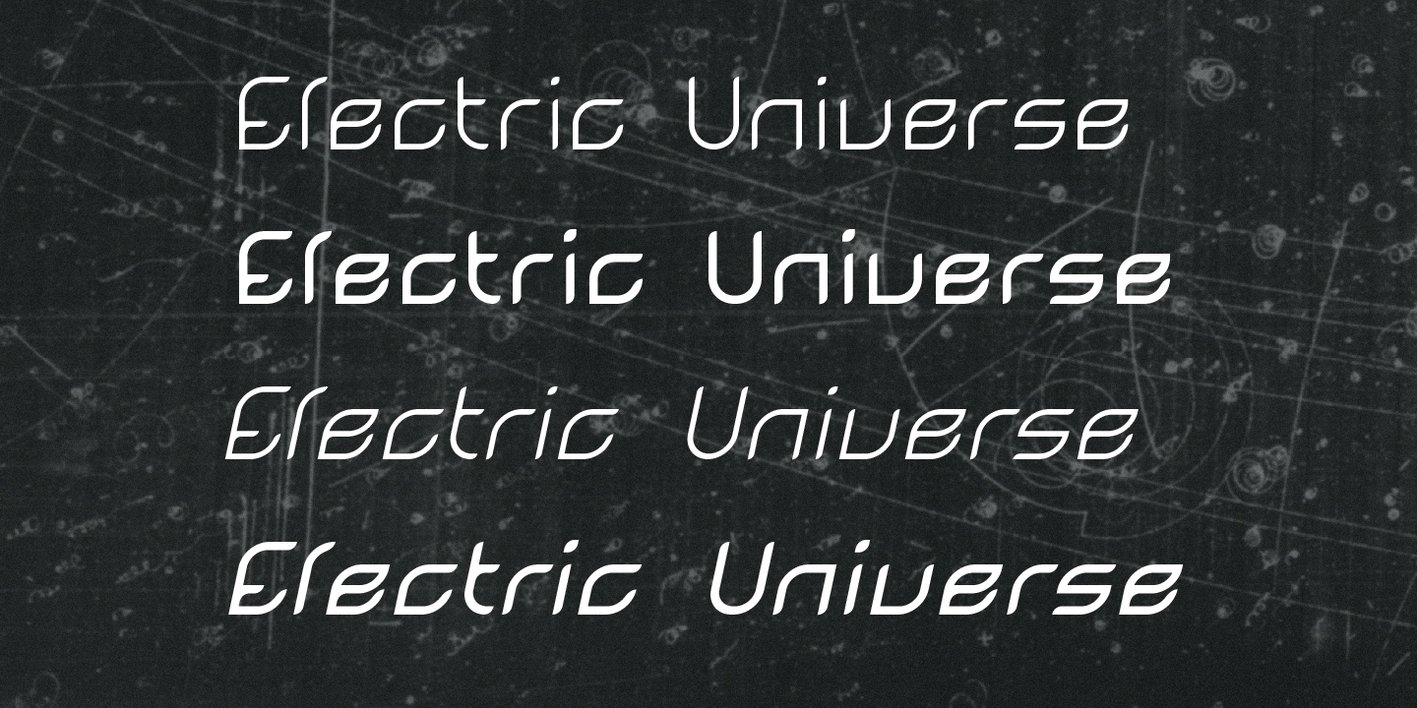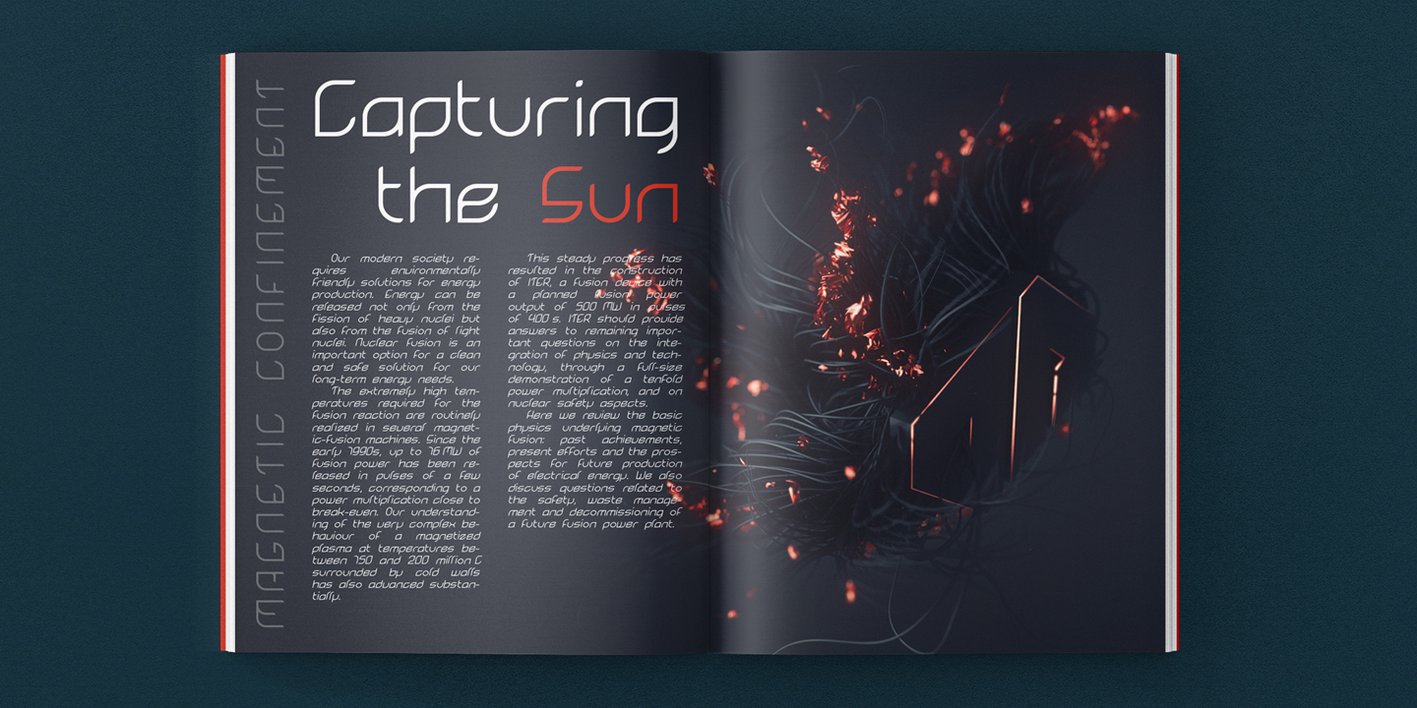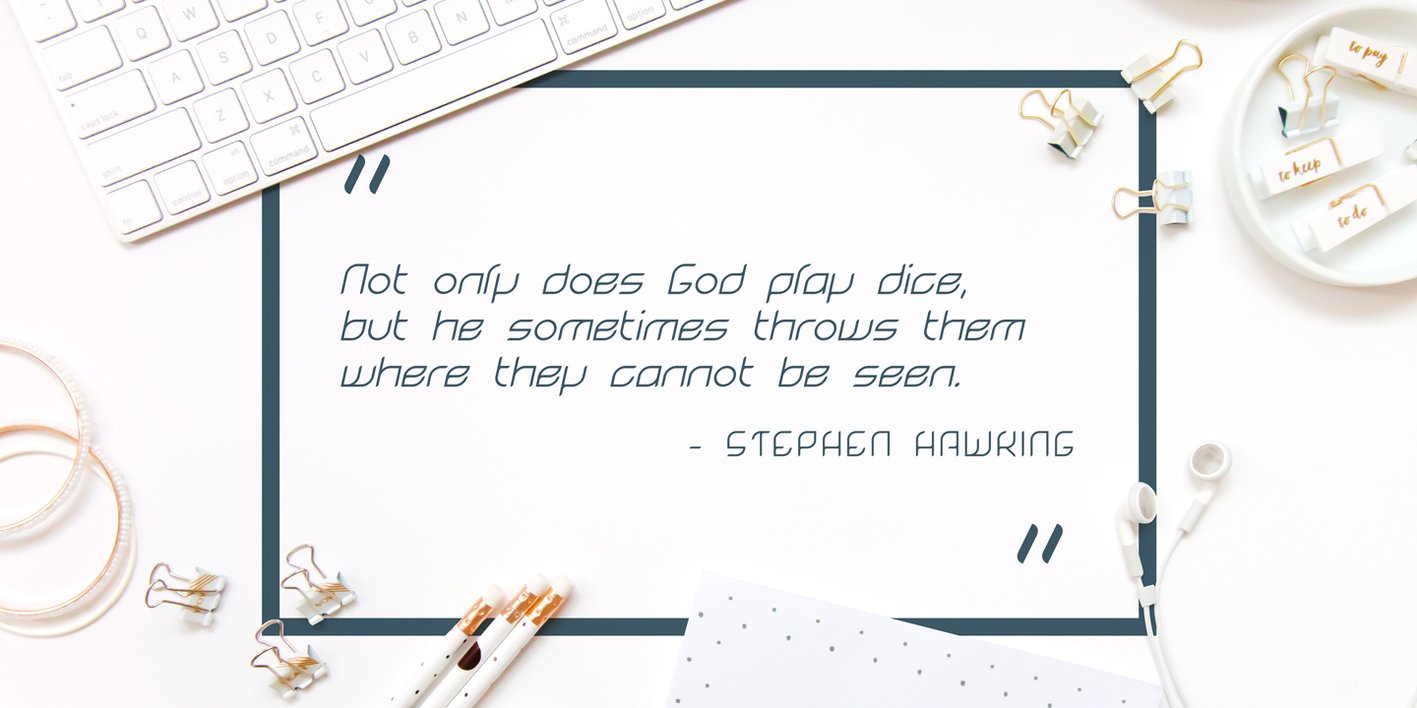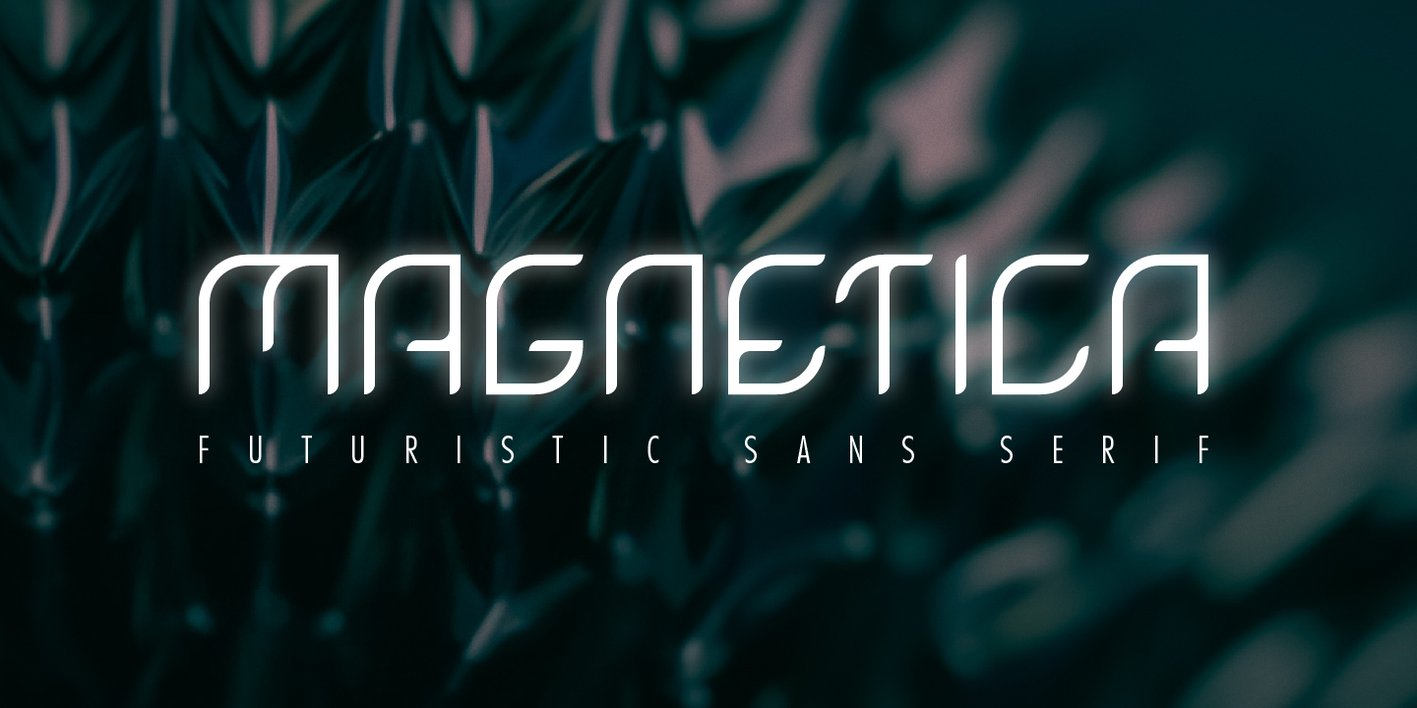
Magnetica Font
Magnetica font family combines design simplicity of modern sans serifs with a futuristic feel based on semi-rounded concept. Its fluent lines can bring unusual spark to logo designs, headlines, magazine designs, quotes, documentaries, advertisements or similar projects. This font, especially its Italic variation, will find its use also in larger text blocks where simplicity, clean lines and well applied kerning is a must. Create something spectacular with Magnetica.